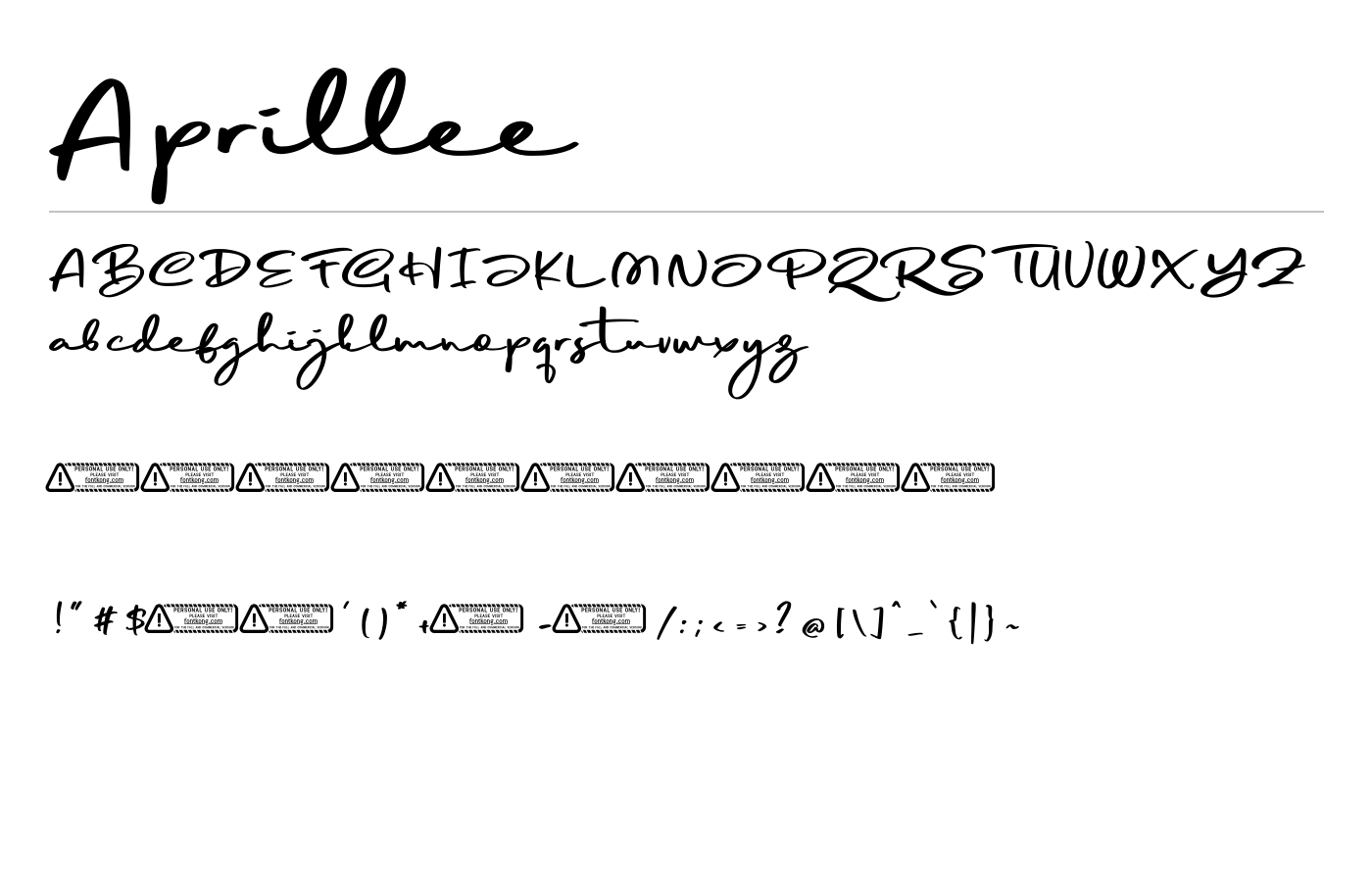
Aprillee is a casual, handwritten script font featuring a playful and friendly style with smooth, flowing strokes and a moderate x-height that enhances readability. Its informal, slightly whimsical character makes it perfect for personal projects, creative branding, and invitations where a warm, approachable tone is desired. This font works best in headlines and short text applications where its unique personality can truly shine.
Aprillee Font
About Aprillee Font